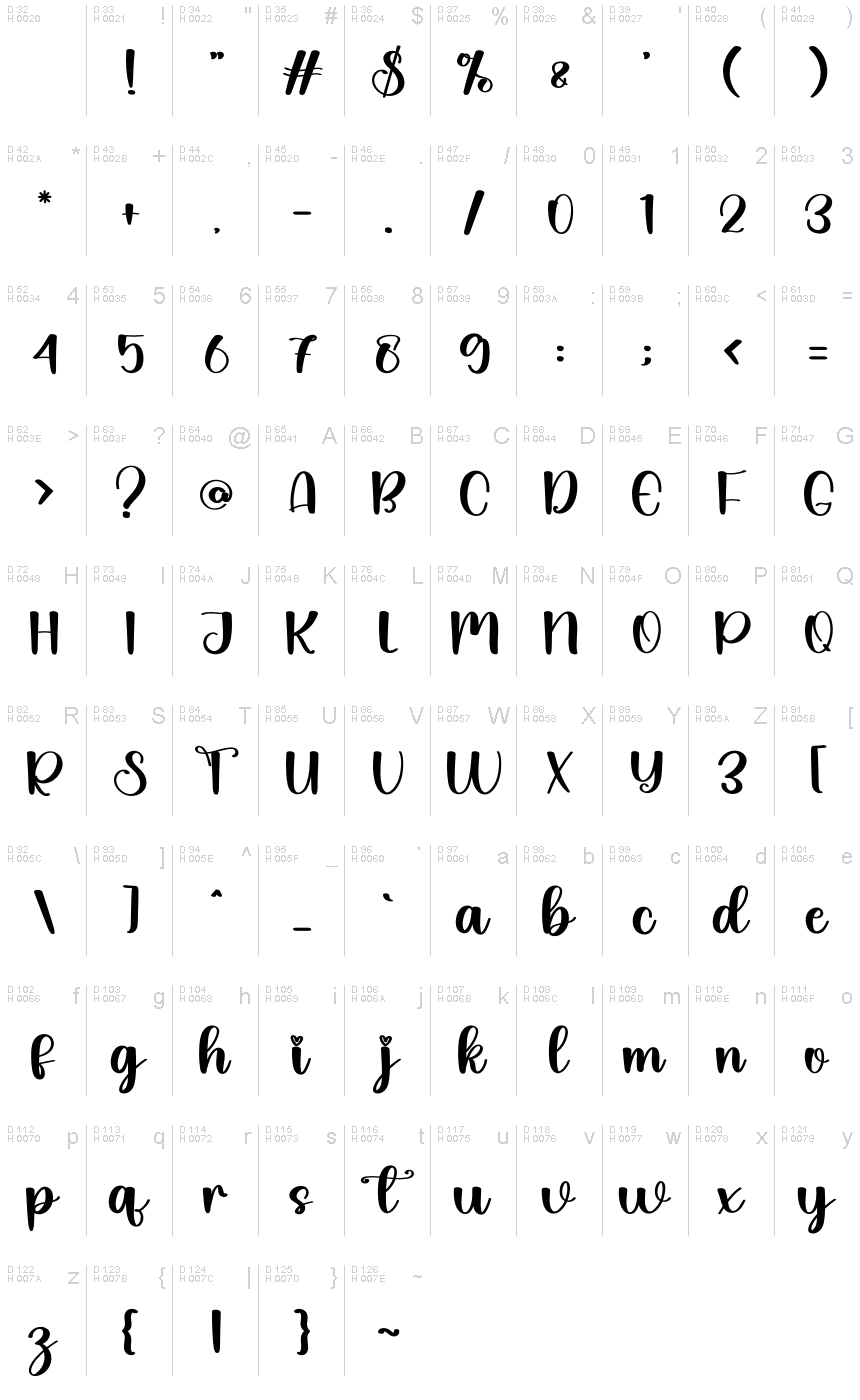
Discount Market
Discount Market, a delightful creation by Inermedia Studio, emerges as a handwritten font with a semi-bold weight that exudes charm and personality. Its flowing letters and playful twists capture the essence of authentic penmanship, while its sturdy form maintains readability across various applications. The font's aesthetic strikes the perfect balance between whimsical flair and professional solidity, making it an excellent choice for creative projects seeking to convey warmth and approachability.
The aesthetic appeal of Discount Market lies in its subtle irregularities, reminiscent of natural hand strokes, which give it a bespoke character. This semi-bold font is versatile enough to enhance the visual storytelling of branding materials, packaging designs, social media graphics, and even editorial content where a touch of human touch is desired.
Whether aiming for an informal yet polished look for business collateral or adding a personal note to invitations or greeting cards, Discount Market stands out as an adaptable typeface that can effortlessly transition from playful contexts to more subdued environments. Its style makes it particularly suitable for industries looking to project friendliness and down-to-earth vibes without sacrificing professionalism.